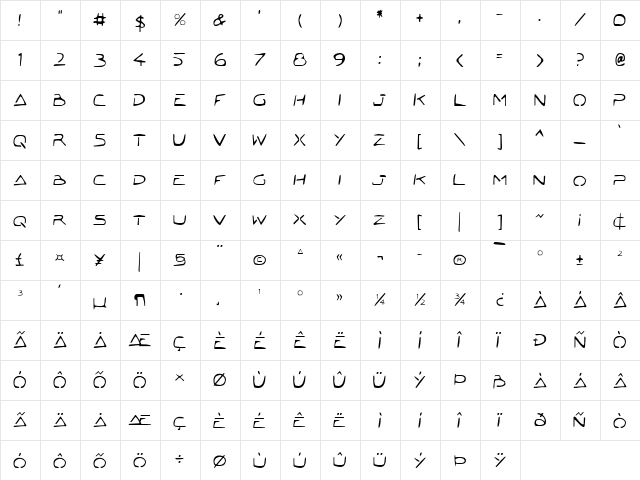
Jetta Tech Condensed Condensed
Design Context for Jetta Tech Condensed Typeface
Jetta Tech Condensed channels digital-age aesthetics through its sharp, structured letterforms — ideal for brands that want to signal innovation. Its narrow stance lets it pack a punch even in space-constrained designs.
Pro Tip: Try Jetta Tech Condensed with generous letter-spacing in UI labels and navigation — the geometric forms benefit from room to breathe.